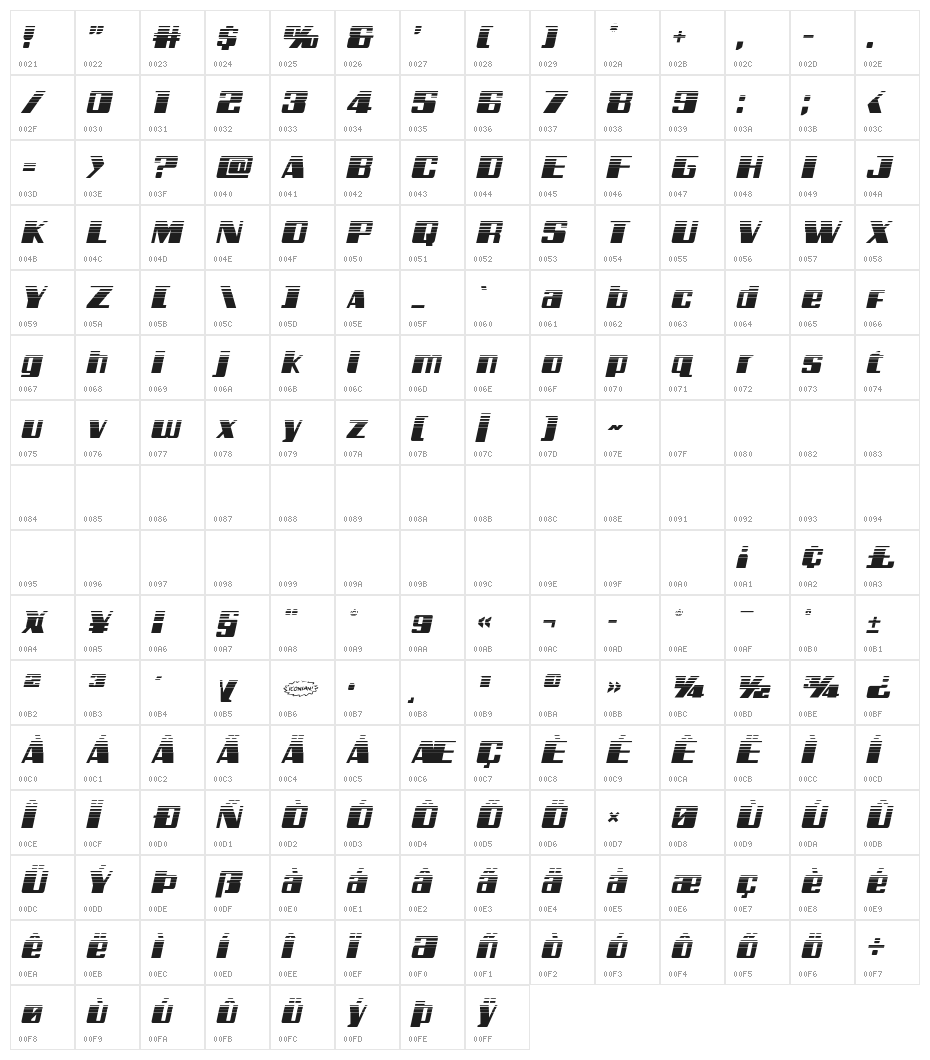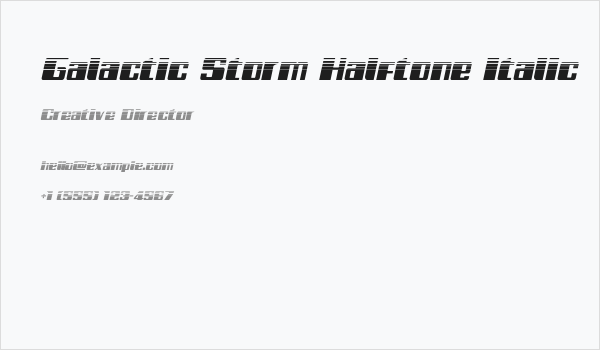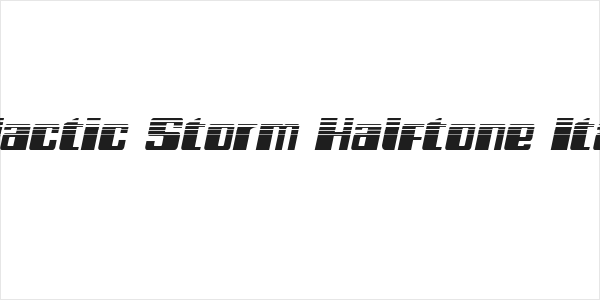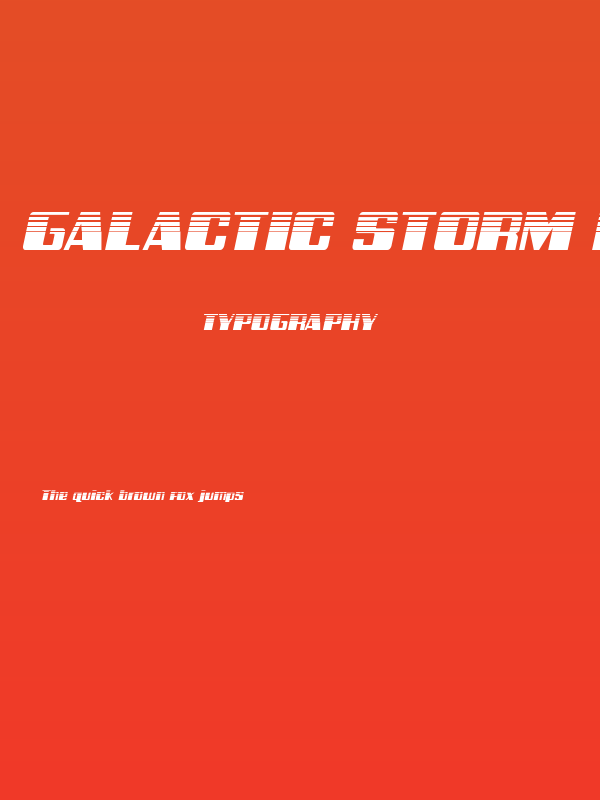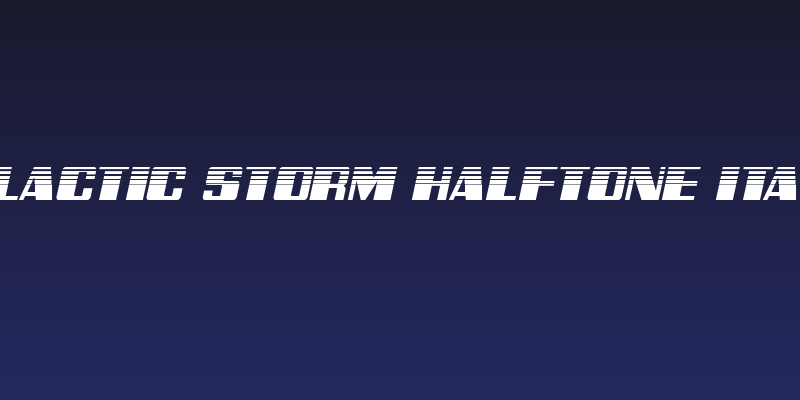
Galactic Storm Halftone Italic Font
Galactic Storm Halftone Italic Description
This font features a bold, futuristic design with a distinct italic slant, giving it a dynamic and energetic appearance. The characters are constructed with a halftone pattern, creating a sense of movement and speed. The uppercase and lowercase letters maintain a consistent style, with sharp angles and clean lines. The numerals and special characters are equally bold and stylized, making them stand out. This font is ideal for projects that require a modern and edgy look, such as sci-fi themes, technology branding, or gaming graphics.
| Proposed Projects | Ideal for sci-fi themes, technology branding, gaming graphics, and modern advertising. |